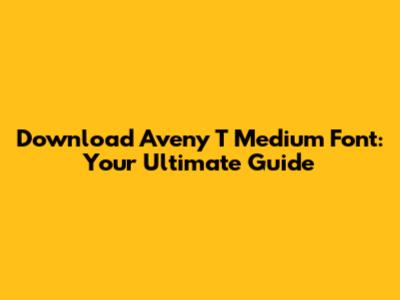
Download Aveny T Medium Font: A Comprehensive Guide
Download Aveny T Medium Font: Your Ultimate Guide
Hey guys, if you're on the hunt for a stylish and versatile font, look no further than Aveny T Medium. This font is a real gem, perfect for everything from sleek website headers to eye-catching print designs. In this article, we'll dive deep into everything you need to know about downloading Aveny T Medium, including where to find it, how to install it, and even some cool ways to use it. So, let's get started!
Conclusion: Get Started with Aveny T Medium Today
So there you have it, guys! Aveny T Medium is an awesome font that can elevate your designs. Now you know where to download it, how to install it, and how to use it in your projects. Whether you're a web designer, graphic designer, or just someone who loves fonts, Aveny T Medium is a great choice. Go ahead, download it today and start creating some amazing designs! Happy designing!